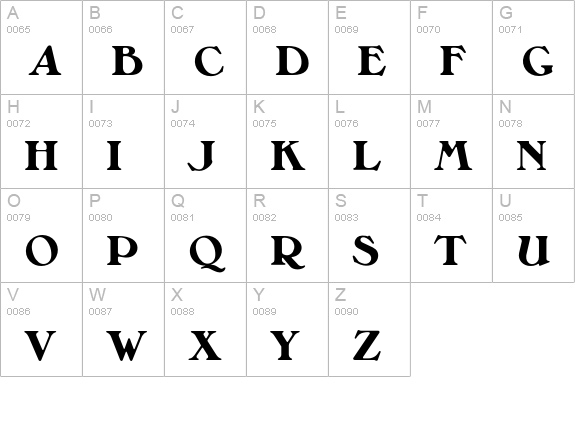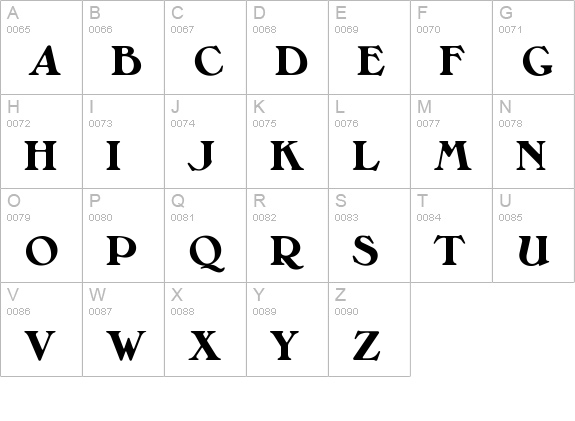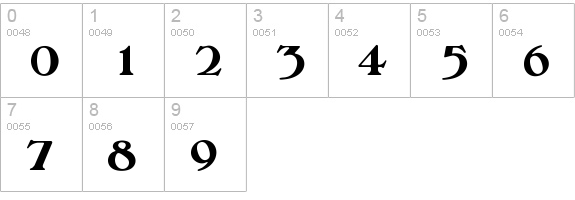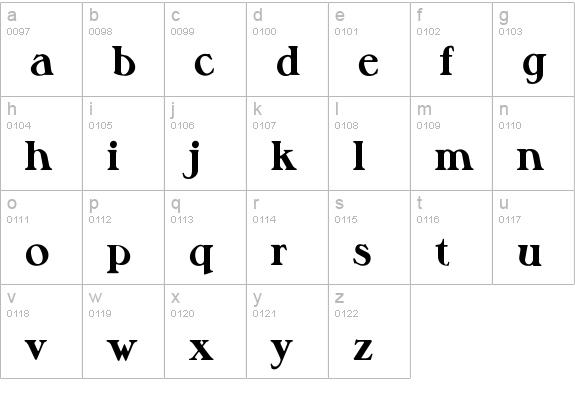
Melborne-Bold Font Details
Melborne-Bold is a strong, high-contrast variant in the Melborne typeface family \xE2\x80\x94 well suited to headlines, attention-grabbing titles, and strong calls-to-action.
Melborne-Bold is a bold and striking font that exudes confidence and modernity. With its clean lines and strong presence, this font is perfect for making a statement in any design project. The thick strokes and sharp angles give Melborne-Bold a powerful and bold look that commands attention. What's even better is that Melborne-Bold is available for free download at FontsMarket.com. This means you can easily add this dynamic font to your collection without any cost. Whether you're designing a poster, creating a logo, or working on a branding project, Melborne-Bold will bring a touch of sophistication and boldness to your work. Download Melborne-Bold today and elevate your designs with this impressive font.